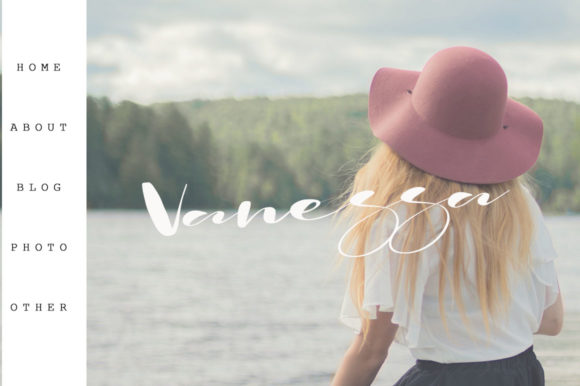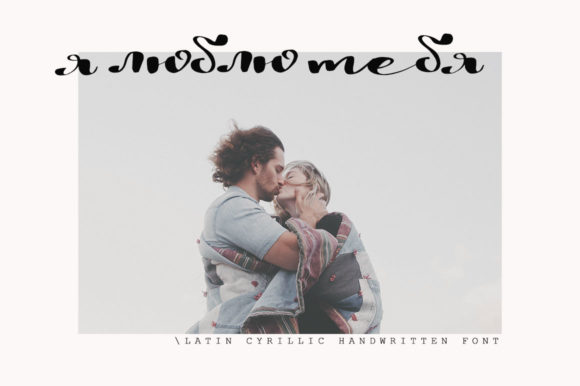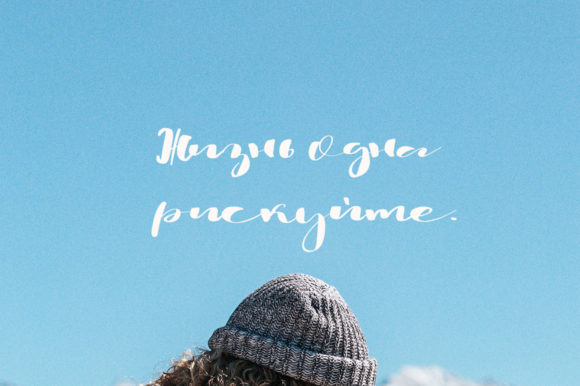
Introduction to Esqulo Font
The Esqulo is an amazing handwritten typeface.
It has a modern look and is perfect for logos, photography, watermarks, quotes, blog headers, and much more .